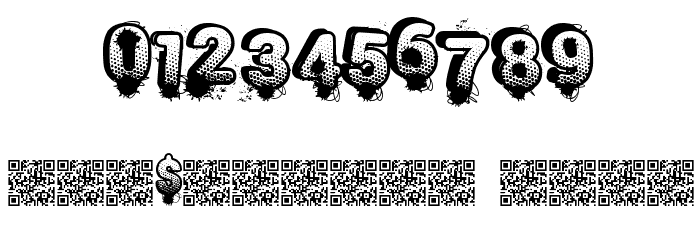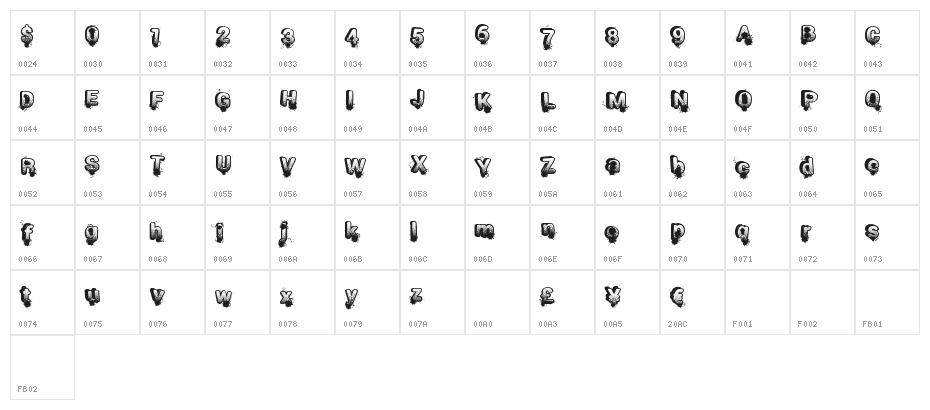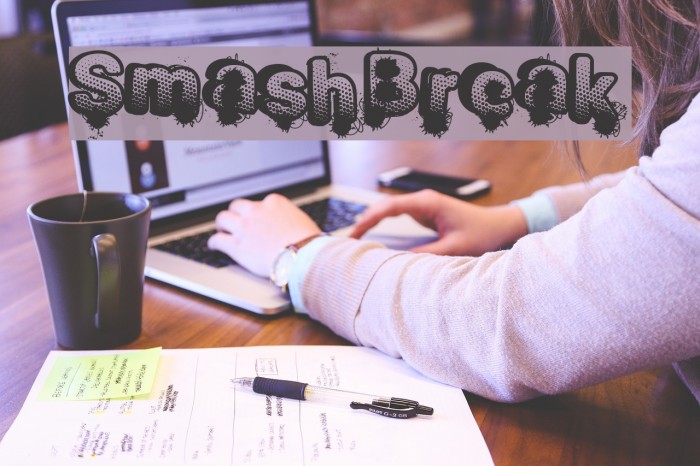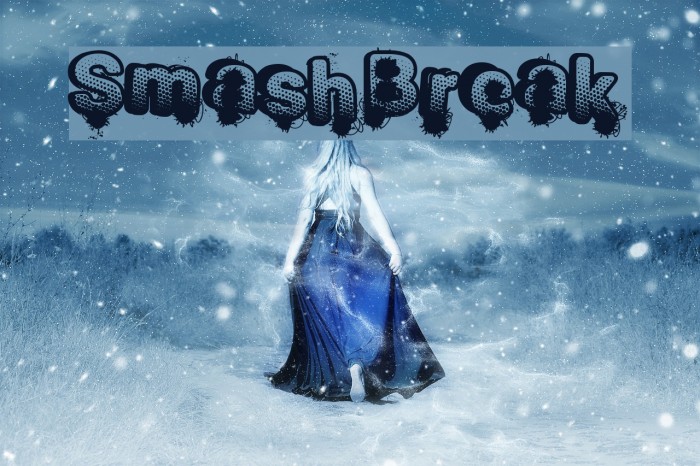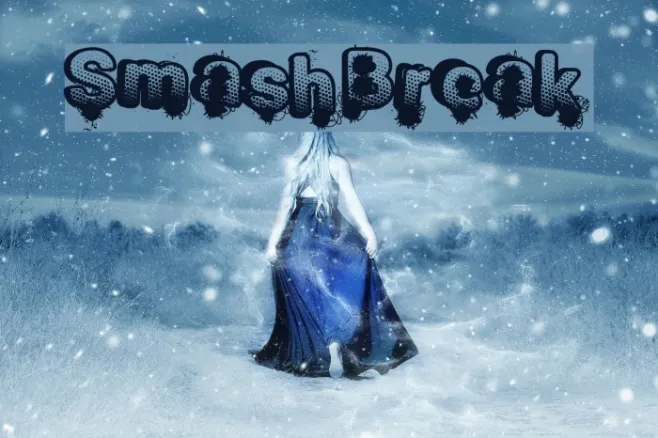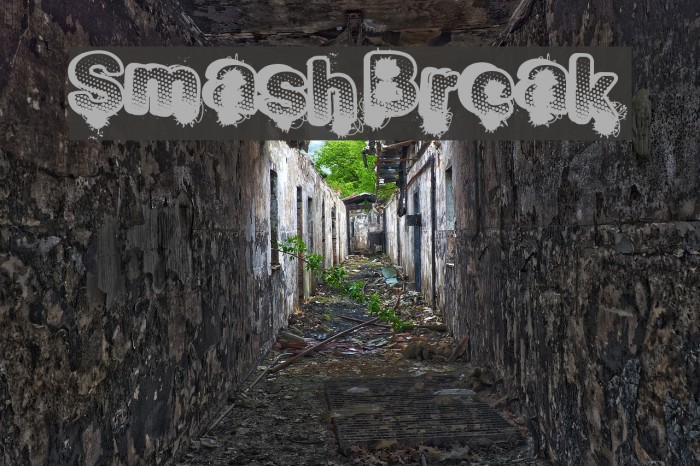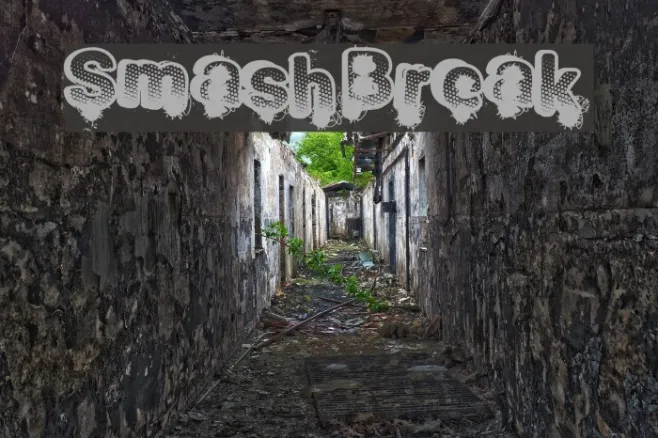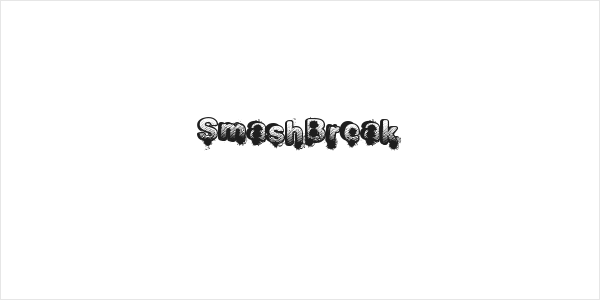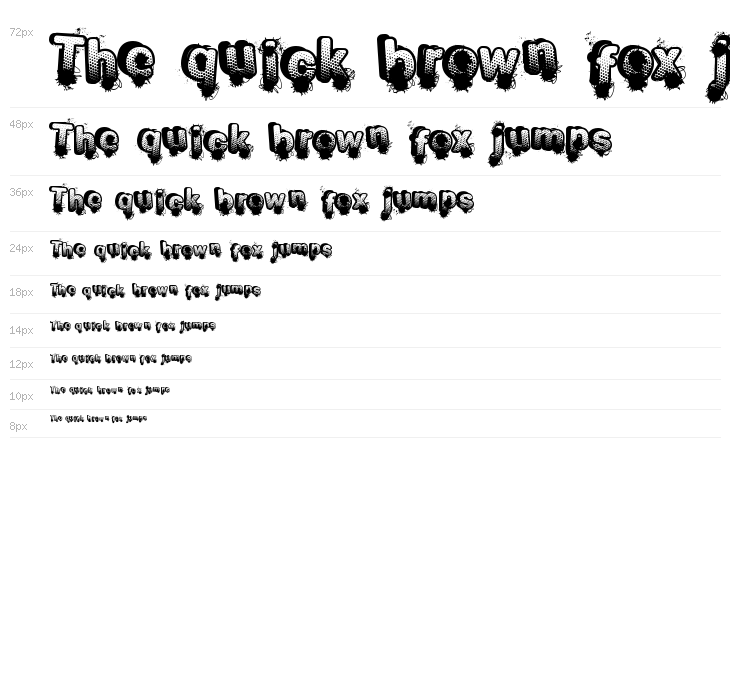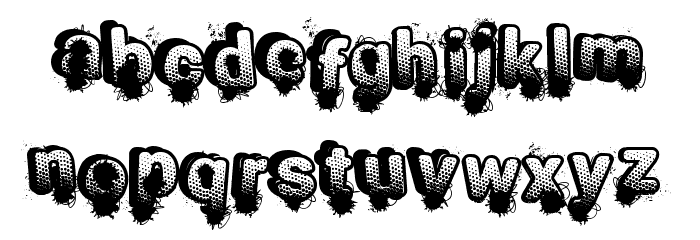
SmashBreak Font
SmashBreak Description
This font features a bold, playful design with a unique distressed texture that gives it a dynamic and energetic feel. The characters are outlined with a thick black border, and the interior is filled with a halftone pattern, adding depth and visual interest. The overall appearance is reminiscent of comic book art or graffiti, making it stand out with its bold and expressive style. The font maintains a consistent weight throughout, ensuring readability while still offering a creative flair. Its decorative nature makes it ideal for projects that require a strong visual impact.
| Proposed Projects | Ideal for posters, album covers, comic books, street art designs, and any project needing a bold, eye-catching font. |